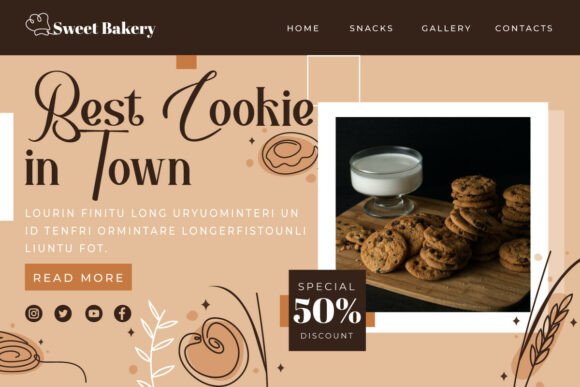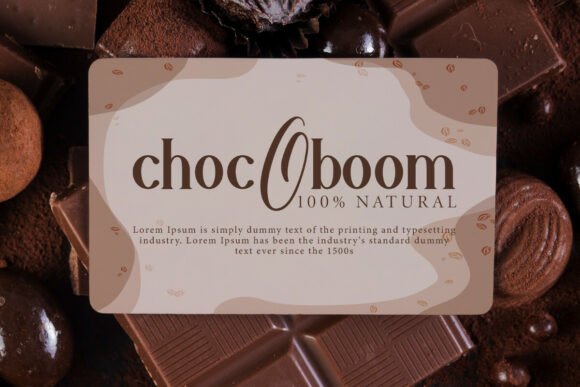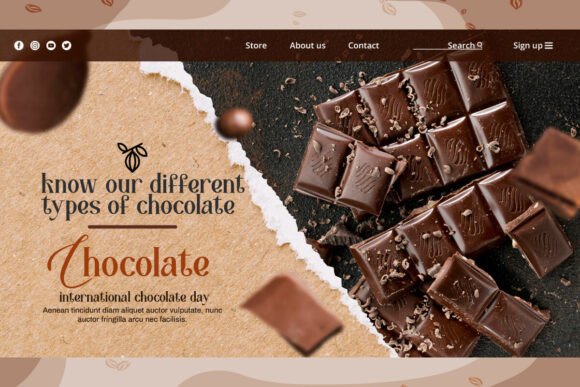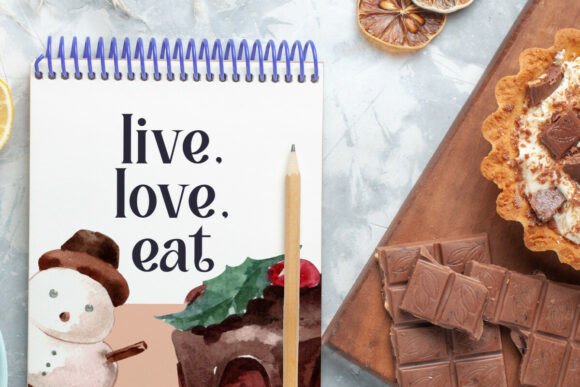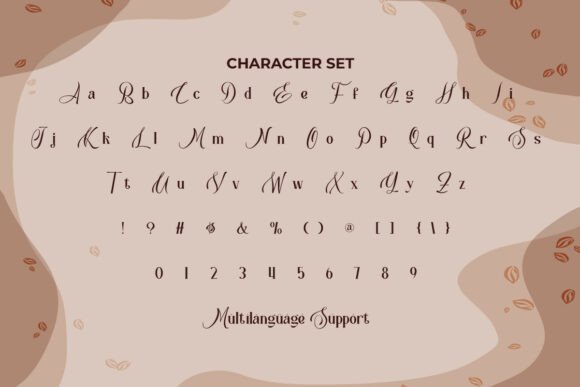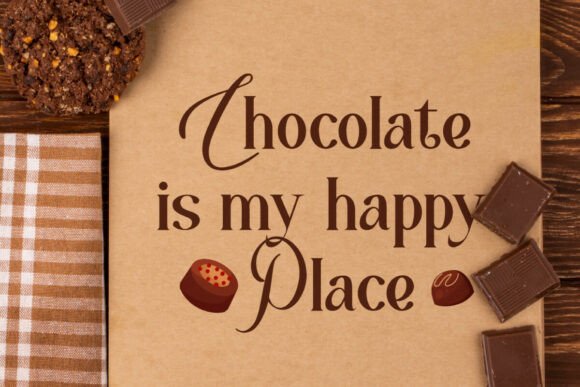
Introduction to Natural Choco Font
Have you ever stumbled upon a font that makes your design project instantly come alive? For many of us, that moment is a rush of creative excitement, and it’s exactly what the Natural Choco Font is all about. This adorable modern display font, crafted by NoahType, is a game-changer for designers looking to add a touch of elegance and sophistication to their work.
With its unique blend of Script for uppercase and Serif for lowercase, Natural Choco Font exudes a beautiful impression that’s perfect for a wide range of creative projects. Whether you’re working on a brand image, cover design, or custom invitation, this high-quality font is an excellent resource to have in your design arsenal. And the best part? It’s available for free download, making it an accessible design resource for designers of all levels.
Key Features of Natural Choco Font
- High-quality, vector-based font design for seamless scalability and crisp display on various devices.
- Transparent background, making it easy to overlay on any image or design without visual clutter.
- Unique, hand-drawn style with a natural, chocolate-inspired aesthetic, perfect for adding a touch of warmth and character to designs.
- Resolution-independent design, ensuring it looks great at any size, from small icons to large-scale graphics and signage.
Honest Review: Natural Choco Font
I recently had the chance to work with the Natural Choco Font for a creative project, and I must say it’s been a great addition to my design resource library.
One of the things I appreciate about this font is its high quality, which makes it perfect for any project where I need a natural and effortless feel. The font’s design is unique and visually appealing, and it’s available for free download, which is a huge plus in my book.
Here are some of the things that work well with Natural Choco Font:
- ✨ Natural and effortless design, perfect for creative projects
- ✨ High-quality font that’s suitable for a wide range of uses
- ✨ Transparent background, making it easy to use with any design
- ⚠️ Limited number of font styles available
- ⚠️ May not be suitable for projects that require a lot of customization
Overall, I’m impressed with Natural Choco Font and would definitely recommend it to other designers. It’s a great addition to any design library, and it’s perfect for those looking for a high-quality font that’s easy to use.
The Natural Choco Font is ideal for a variety of creative projects, including branding, marketing materials, and social media graphics. Its high-quality design and transparent background make it perfect for use in digital design, while its versatility allows it to be used in both print and web-based projects.